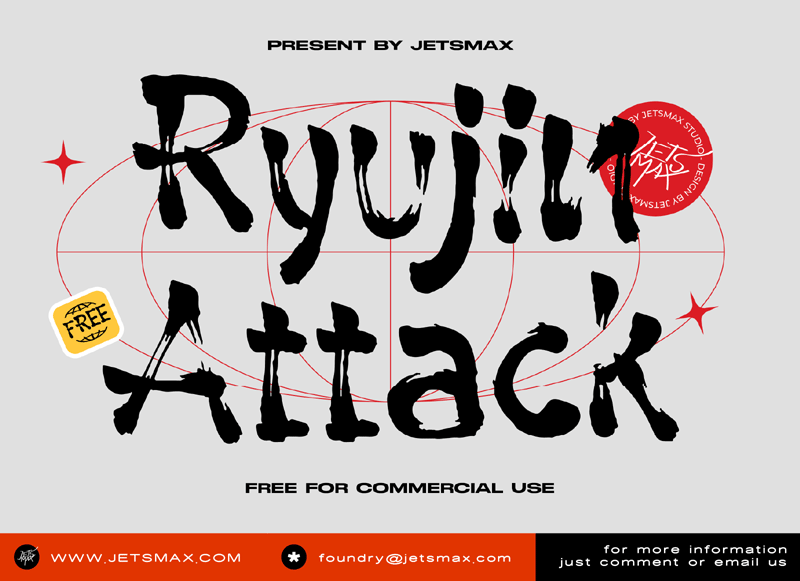
Free download Ryujin Attack Font
Preview and download Ryujin Attack Font. Created by Jetsmax in Script Brush styles with 100% Free license.
Ryujin Attack is a trendy brush typeface with natural hand writing style. You can use this font to elevate any of your design project FOR FREE!! What�s Included : - Ryujin Attack (OTF/TTF/WOFF) - Web Font (WOFF) - Stylish and Trendy - Works on PC & Mac - Simple installations - Accessible in the Adobe Illustrator, Adobe Photoshop, Adobe InDesign, even work on Microsoft Word. - PUA Encoded Characters � Fully accessible without additional design software. Thank you Hope you like our font! Credits: Unsplash - Photos |